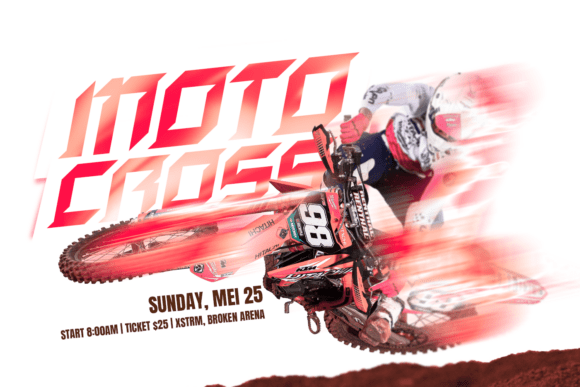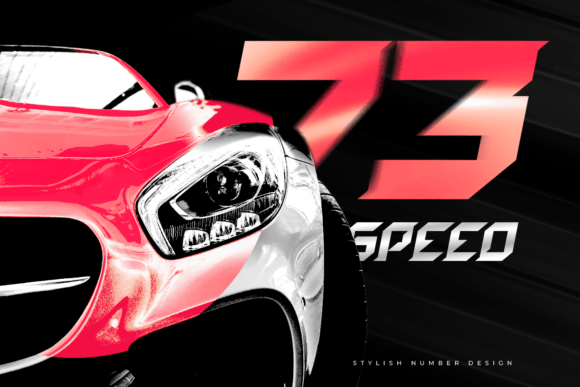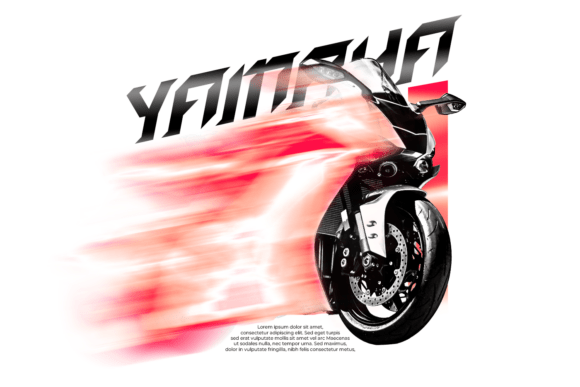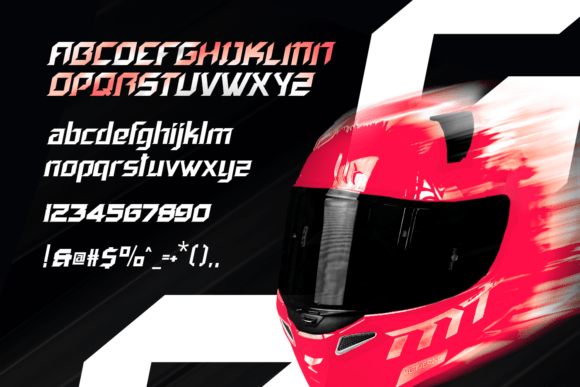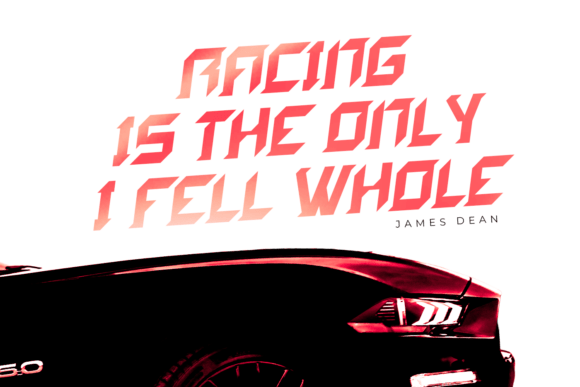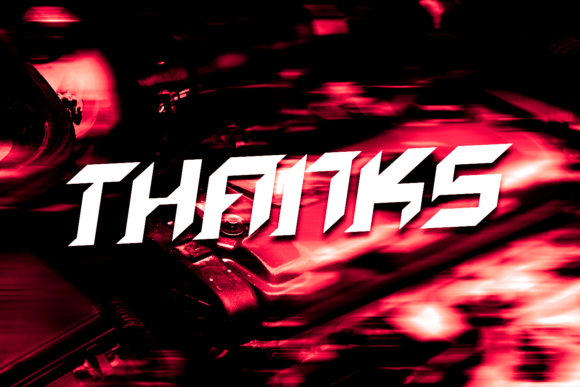
The Ultimate Racing Font: Dastre – Where Speed Meets Style
I’ll never forget the time I was working on a project for a client’s racing team. I had all the design elements ready, but I just couldn’t find the perfect font to capture the essence of speed and adrenaline. That’s when I stumbled upon Dastre, a font that was specially designed with a strong racing style, highlighting the impression of speed, strength, and high adrenaline. In this article, I’ll share my experience with Dastre, its features, and how to make the most of it in your designs.
First Impressions: A Font that Means Business
The letter design of Dastre appears firm, sharp, and modern, with italic elements and aerodynamic line cuts, depicting the speed of a vehicle at high speed. It’s perfect for branding projects, logos, wedding designs, social media posts, advertisements, product packaging, product designs, labels, photography, watermarks, invitations, stationery, and any project that requires a racing theme font.
- ✨ Speed and Strength: Dastre exudes a sense of speed and strength, making it perfect for racing-themed designs.
- ✅ Modern and Sharp: The font’s modern and sharp design elements make it stand out from other fonts.
- 💯 Versatile: Dastre can be used for a wide range of design projects, from branding to social media posts.
- 🤔 Limited use for formal designs: Dastre’s racing style may not be suitable for formal designs or projects that require a more traditional font.
- ⚠️ May not work well in small sizes: The font’s sharp lines and italic elements may not be legible in small sizes.
Dastre was designed with the racing spirit in mind. The designer wanted to create a font that would capture the essence of speed, strength, and high adrenaline. Inspired by the aerodynamic lines of racing cars and the thrill of the track, Dastre was born. Whether you’re designing a logo for a racing team or creating a social media post for a sports brand, Dastre is the perfect font to convey the energy and excitement of the racing world.
A: Dastre is a specially designed font with a strong racing style, highlighting the impression of speed, strength, and high adrenaline.
A: Dastre is perfect for branding projects, logos, wedding designs, social media posts, advertisements, product packaging, product designs, labels, photography, watermarks, invitations, stationery, and any project that requires a racing theme font.
A: Dastre is designed to be legible, but its sharp lines and italic elements may not be suitable for small sizes or formal designs.